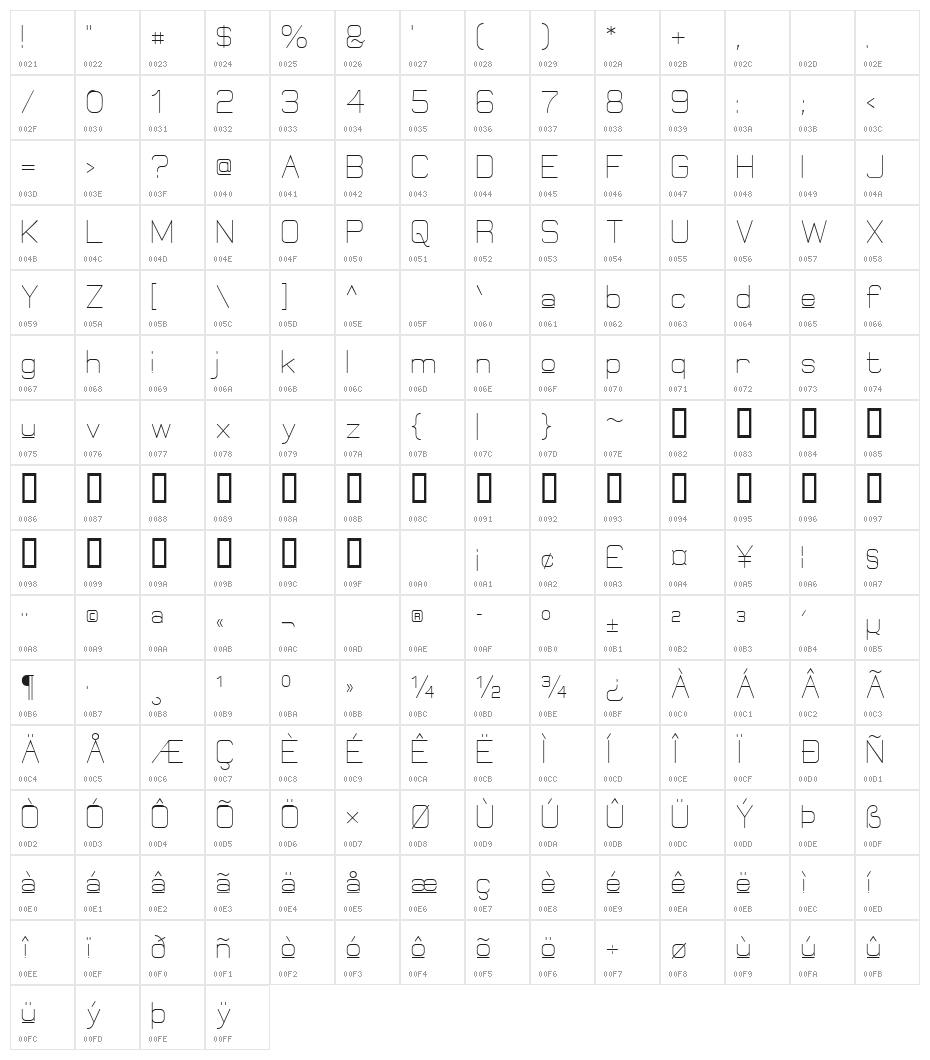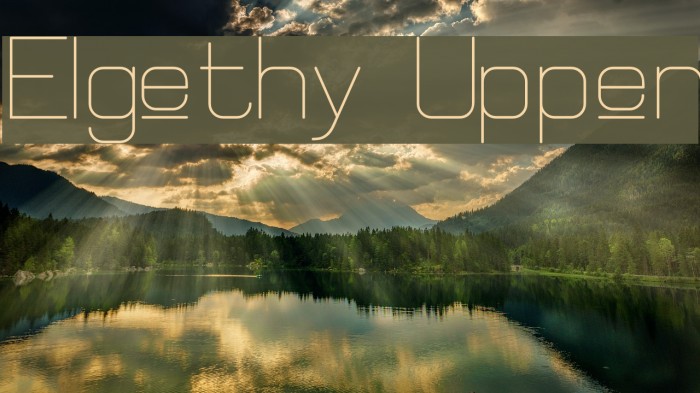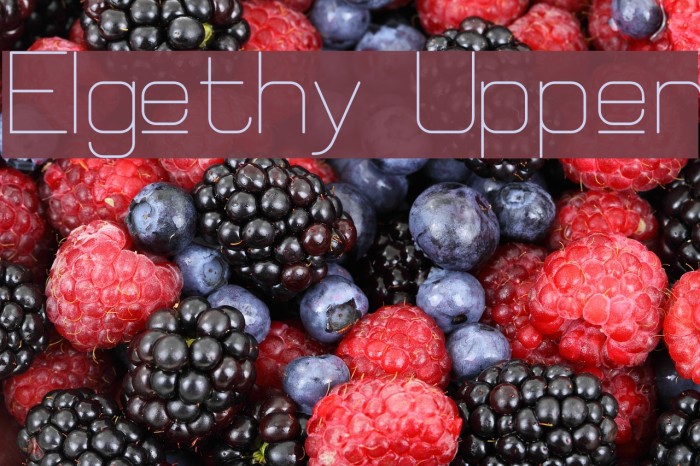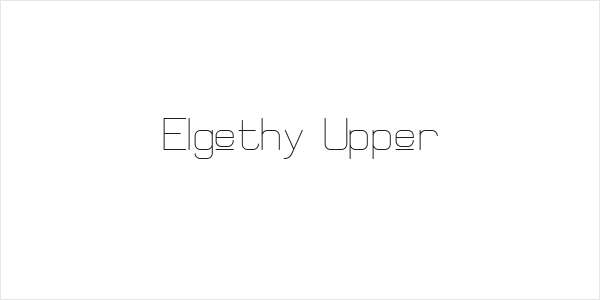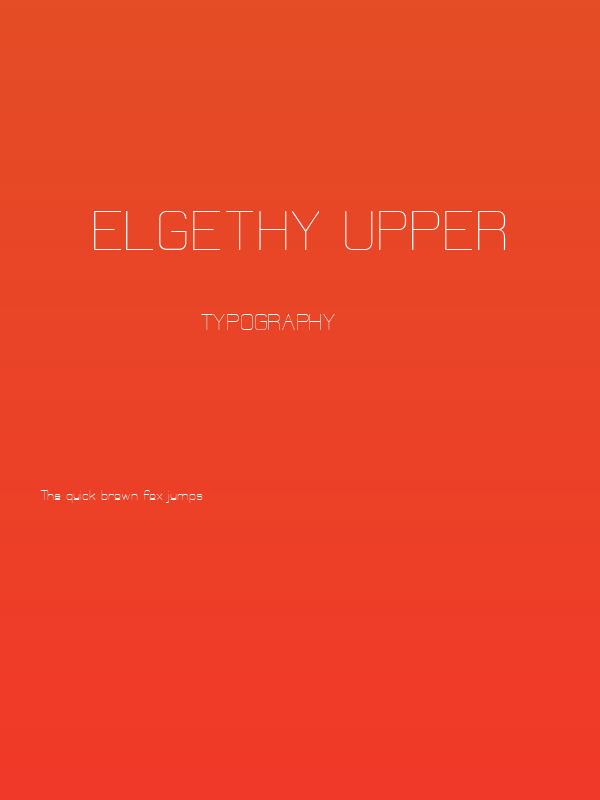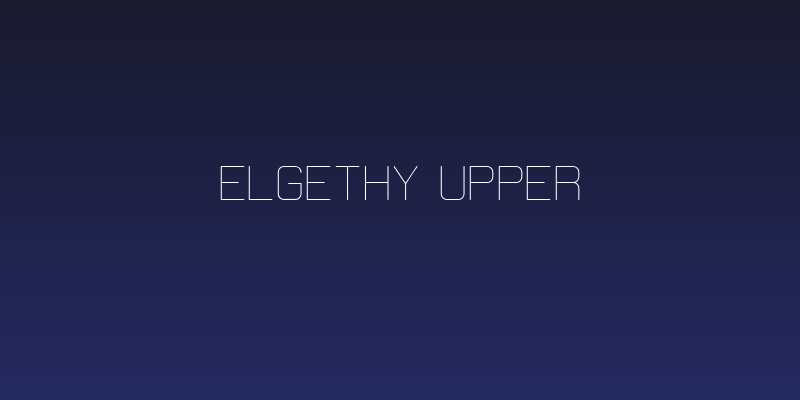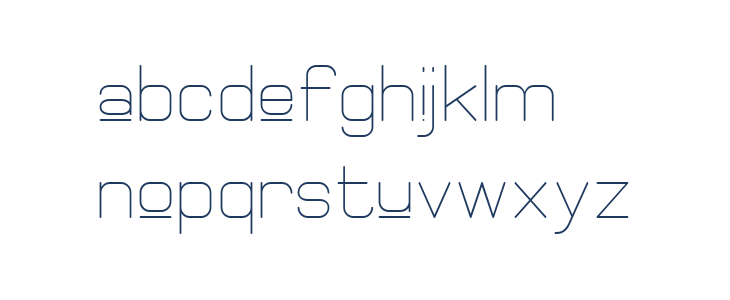
Elgethy Upper Font
Elgethy Upper Description
This font features a modern and minimalist design with a geometric structure. The characters are composed of thin, uniform lines that create a clean and sleek appearance. The uppercase and lowercase letters maintain a consistent height and width, contributing to a balanced and harmonious look. The numerals and special characters follow the same design principles, ensuring a cohesive overall style. The font's simplicity and clarity make it highly legible, while its contemporary aesthetic adds a touch of sophistication.
| Proposed Projects | Ideal for tech branding, modern websites, minimalist posters, and digital interfaces. |